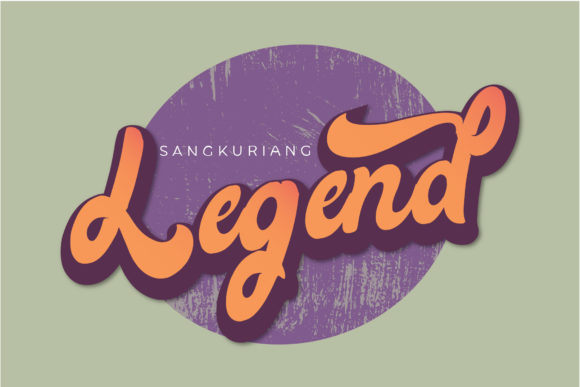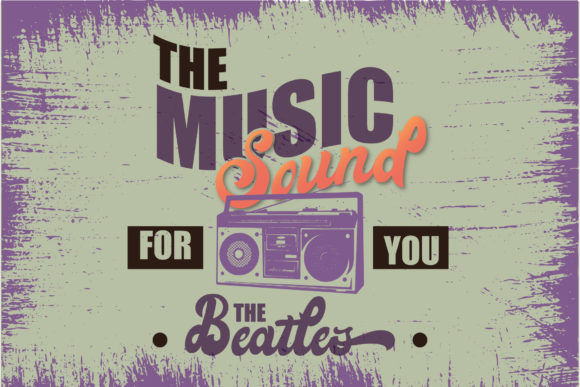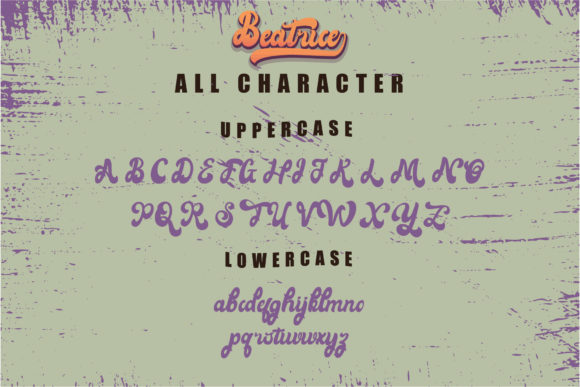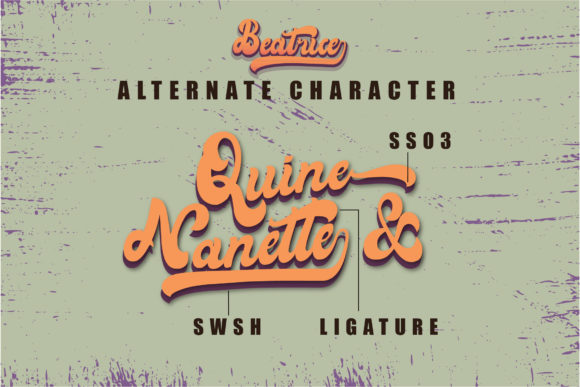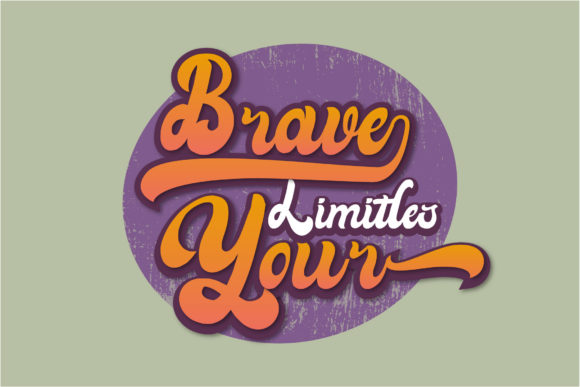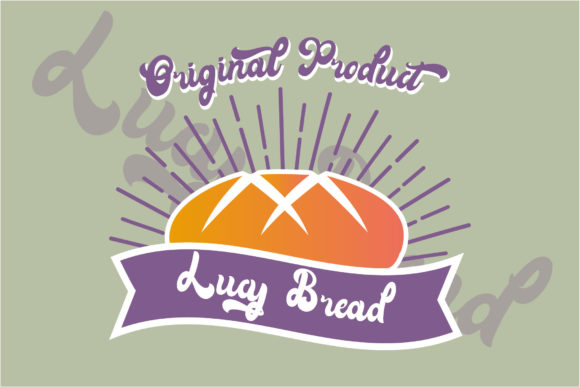
Introducing Beatrice Font: A Standout Bold Handwritten Font with Vintage Flair
In the world of typography, a great font can make all the difference in the success of a design project. Whether you’re a seasoned designer or a crafty DIY enthusiast, finding the perfect typeface can be a daunting task. That’s why we’re excited to introduce Beatrice Font, a bold handwritten font that combines vintage and retro influences with a modern twist.
What is Beatrice Font?
Beatrice is a standout bold handwritten font that exudes a sense of nostalgia and sophistication. With its unique blend of vintage and retro elements, this typeface is perfect for designers and crafters looking to add a touch of elegance and personality to their projects. From logos and headlines to magazines, books, and greeting cards, Beatrice Font is a versatile and reliable choice.
Key Features of Beatrice Font
- Bold and Eye-Catching: Beatrice Font is a bold and attention-grabbing typeface that’s perfect for headlines, titles, and logos.
- Vintage and Retro Influences: This font combines vintage and retro elements with a modern twist, giving it a unique and distinctive look.
- Handwritten Style: Beatrice Font has a beautiful handwritten style that’s perfect for adding a personal touch to your designs.
- Highly Versatile: This font is suitable for a wide range of design projects, including logos, headlines, magazines, books, greeting cards, and more.
Beatrice Font is a perfect match for designers and crafters looking to add a touch of elegance and personality to their projects. Whether you’re working on a logo, brochure, or social media graphics, this font is sure to make your design stand out. Here are some ideas for using Beatrice Font:
- Logos and Branding: Use Beatrice Font to create a bold and eye-catching logo that reflects your brand’s personality.
- Magazines and Books: Add a touch of sophistication to your magazine or book with Beatrice Font, perfect for headlines and titles.
- Greeting Cards: Create beautiful and personalized greeting cards with Beatrice Font, perfect for special occasions.
- Makeup Products: Use Beatrice Font to create eye-catching packaging and branding for your makeup products.
Why Choose Beatrice Font?
With so many fonts available, why choose Beatrice Font? Here are just a few reasons why this typeface stands out:
- Unique and Distinctive: Beatrice Font has a unique and distinctive look that’s sure to make your design stand out.
- High-Quality Design: This font is designed with high-quality and attention to detail, ensuring that it looks great in any design.
- Versatile: This font is suitable for a wide range of design projects, making it a great addition to any designer’s toolkit.
In conclusion, Beatrice Font is a standout bold handwritten font that combines vintage and retro influences with a modern twist. With its unique and distinctive look, high-quality design, and versatility, this typeface is perfect for designers and crafters looking to add a touch of elegance and personality to their projects. Whether you’re working on a logo, magazine, book, or greeting card, Beatrice Font is a great choice.